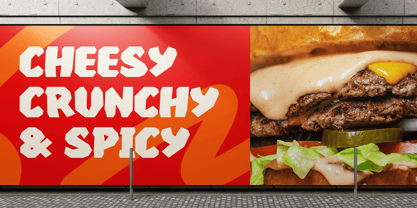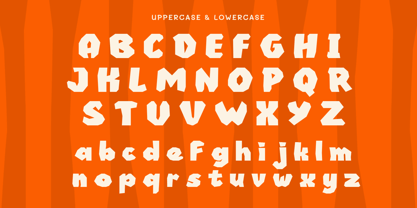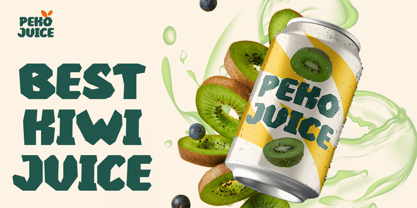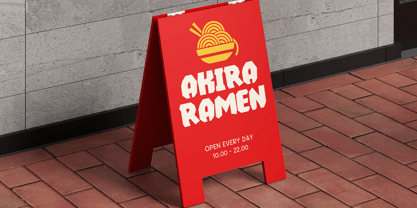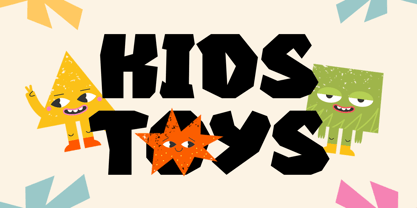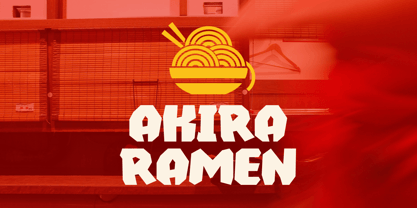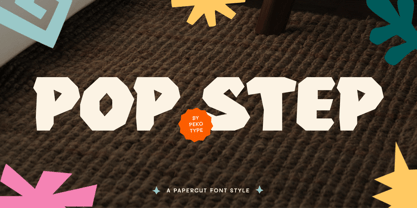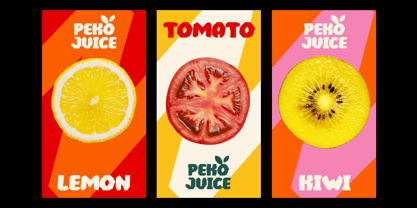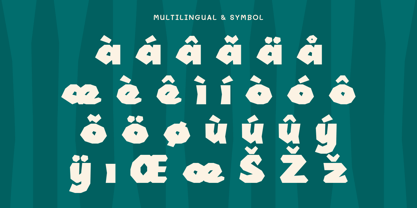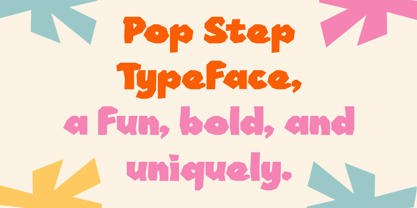
Popstep
Die Schriftfamilie Popstep wurde von Galang Bryan entworfen und von Pekotype veröffentlicht. Popstep enthält 1 Stile. Mehr über diese Familie
POPSTEP is a bold and playful display font inspired by papercut art. With its chunky shapes and fun personality, it’s perfect for branding, logos, packaging, posters, children’s projects, social media content, and promotional materials. Designed to be eye-catching and easy to use, POPSTEP adds a cheerful, creative touch that helps your designs stand out and feel more memorable.